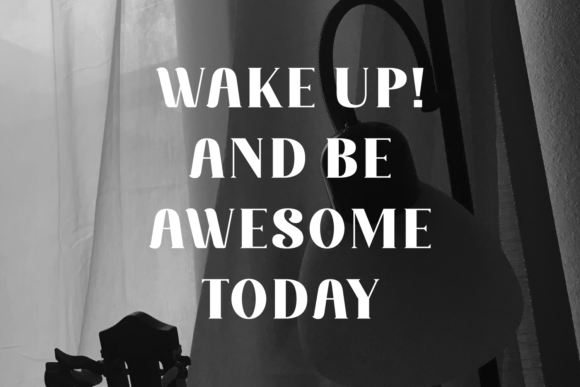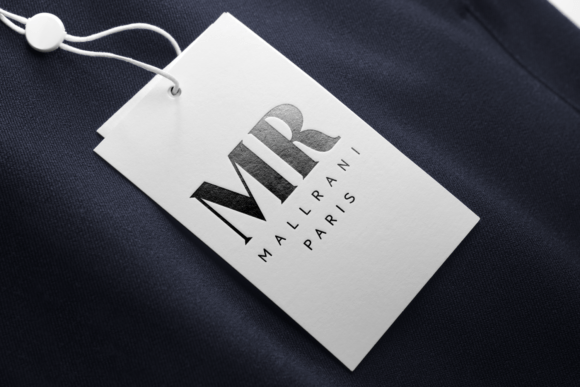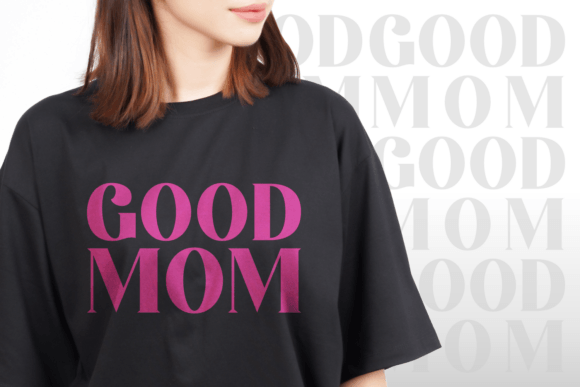
Introduction to Habits Font
Habits is a modern, bold serif font that combines classic elegance with a contemporary flair.
Its strong lines and distinctive letterforms make it perfect for headlines and eye-catching designs The font conveys confidence and style, making it ideal for brands looking to make a bold statement.
Key Features of Habits Font
Why Choose Habits Font?
Habits Font offers exceptional quality and versatility, making it a valuable addition to your design toolkit. Whether you’re creating for personal projects or commercial use, Habits Font delivers professional results.